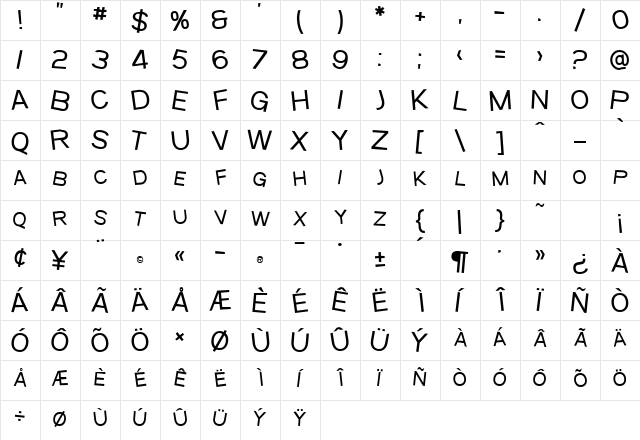
SF Beaverton SC Medium Free Font
SF Beaverton SC Medium
Design Context for SF Beaverton SC
SF Beaverton SC is a composed and adaptable typeface that performs quietly and consistently across a wide range of design contexts.
Pro Tip: Use SF Beaverton SC in both headline and body roles to test its range before committing to a single application.